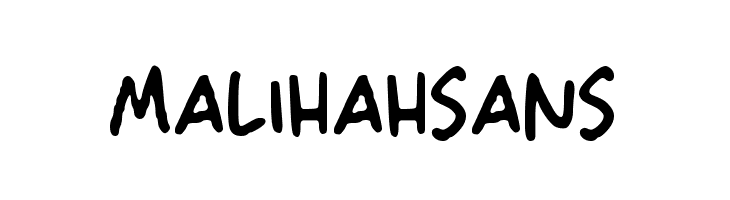
A bold, playful handwritten font with dynamic and irregular strokes.
A bold, playful handwritten font with tall, narrow letters and a casual style.
A playful, handwritten font with fluid, cursive strokes and a casual elegance.
A decorative, modern font with elongated, geometric letterforms.
A bold, geometric font with sharp, angular cuts for a futuristic look.
A bold, futuristic font with a double-line geometric design.
A dynamic cursive script font with fluid, expressive strokes.
A playful, bold, and handwritten-style font with rounded strokes.
A bold, cursive script font with expressive, flowing strokes.
A playful, informal handwritten font with loose, flowing letterforms.